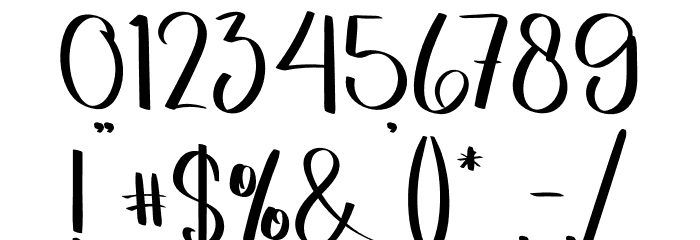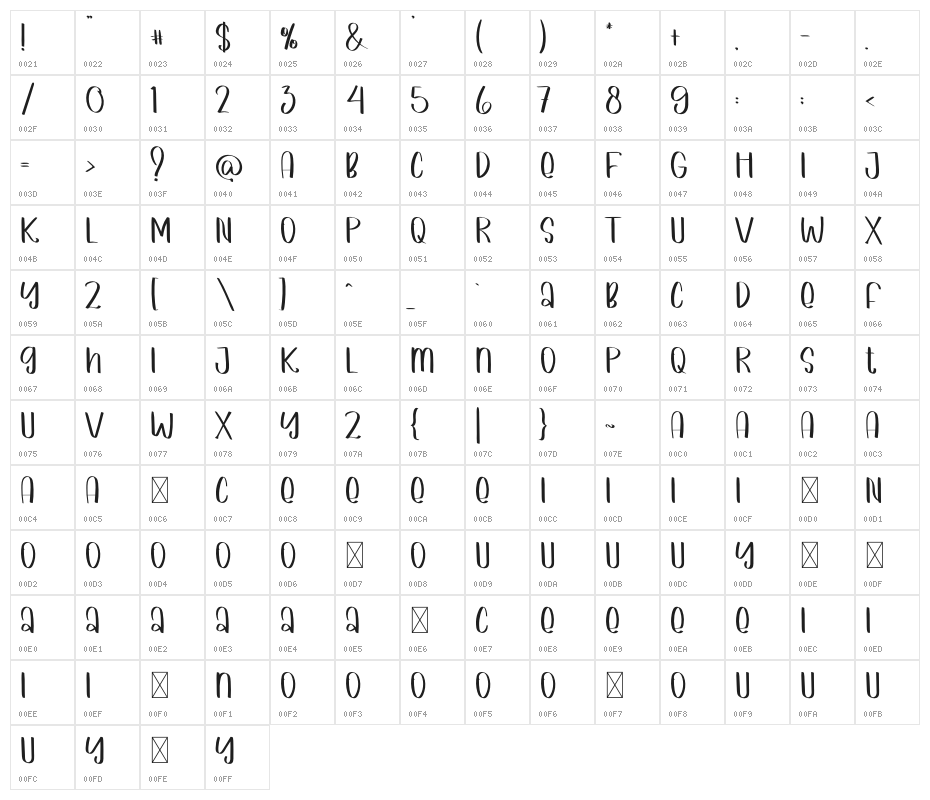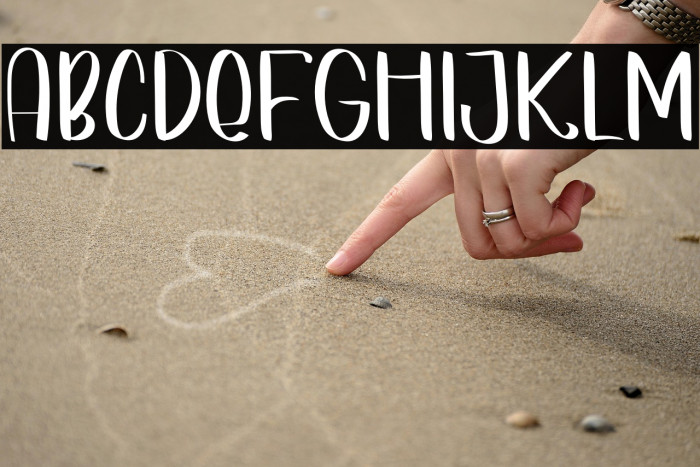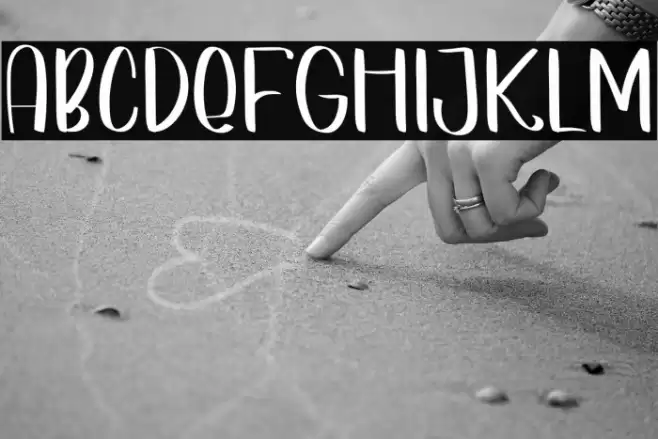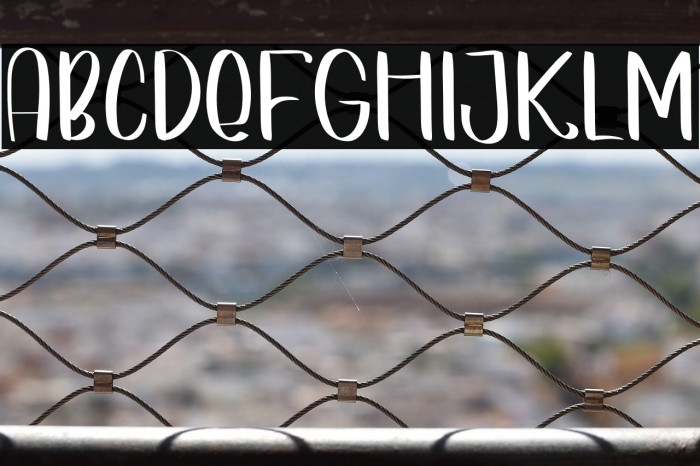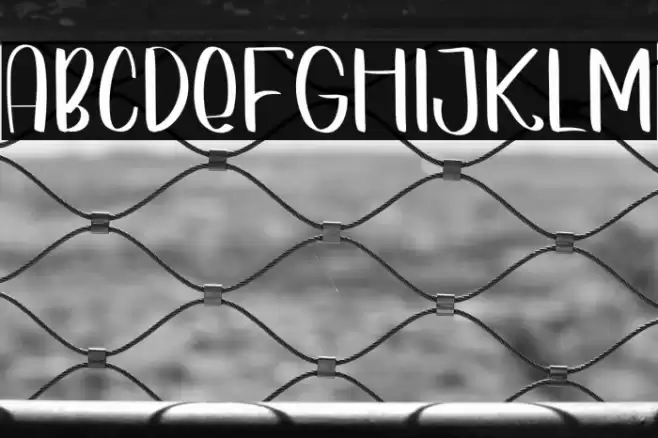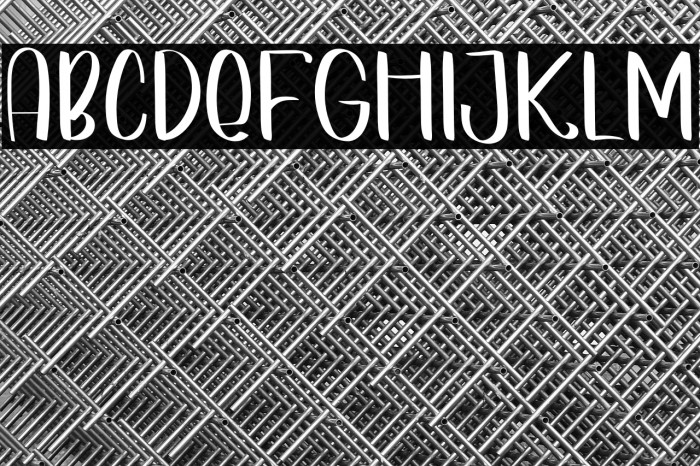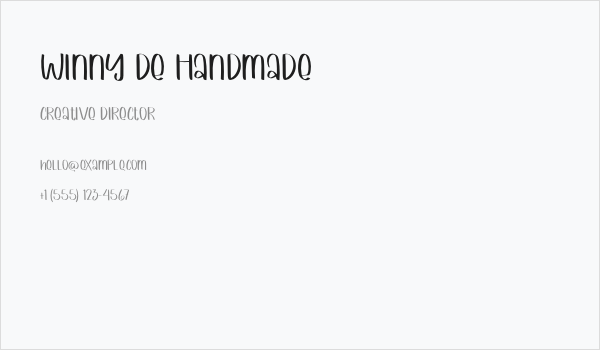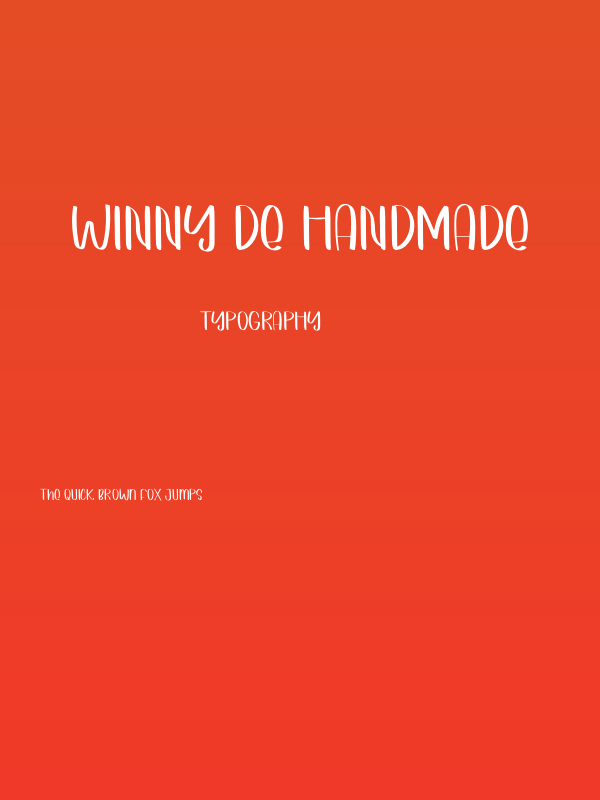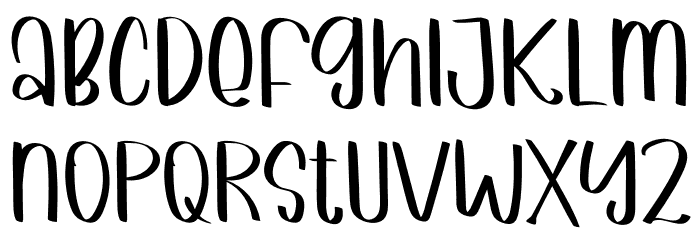
Winny De Handmade Font
Winny De Handmade Description
This font features a playful and energetic handwritten style, characterized by its bold and flowing strokes. The letters are slightly slanted, giving a dynamic and informal appearance. The uppercase and lowercase letters maintain a consistent style, with rounded edges and a smooth flow. The numerals and special characters are designed to match the lively aesthetic, making them suitable for creative and casual projects. The overall look is friendly and approachable, perfect for adding a personal touch to any design.